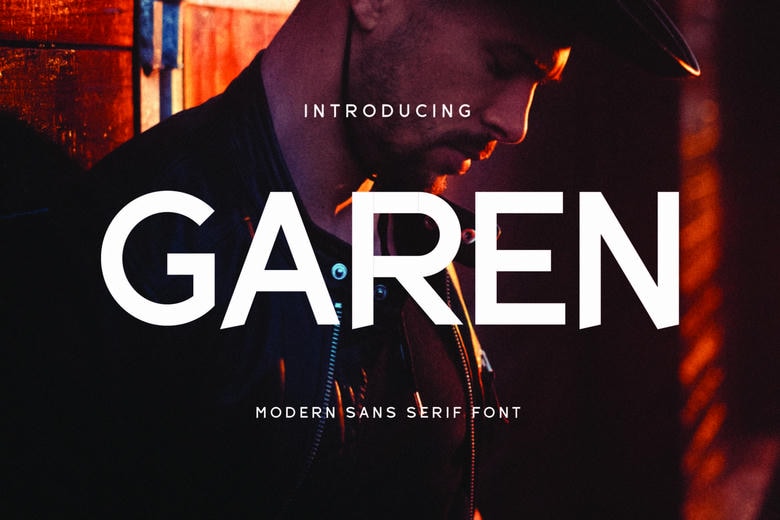
Garen Font
Garen Sans Font Typeface takes inspiration from the iconic minim logo. It works well for templates, brochures, videos, ads, branding, invitations, beauty projects, and many other design needs.
Garen Sans Serif Font